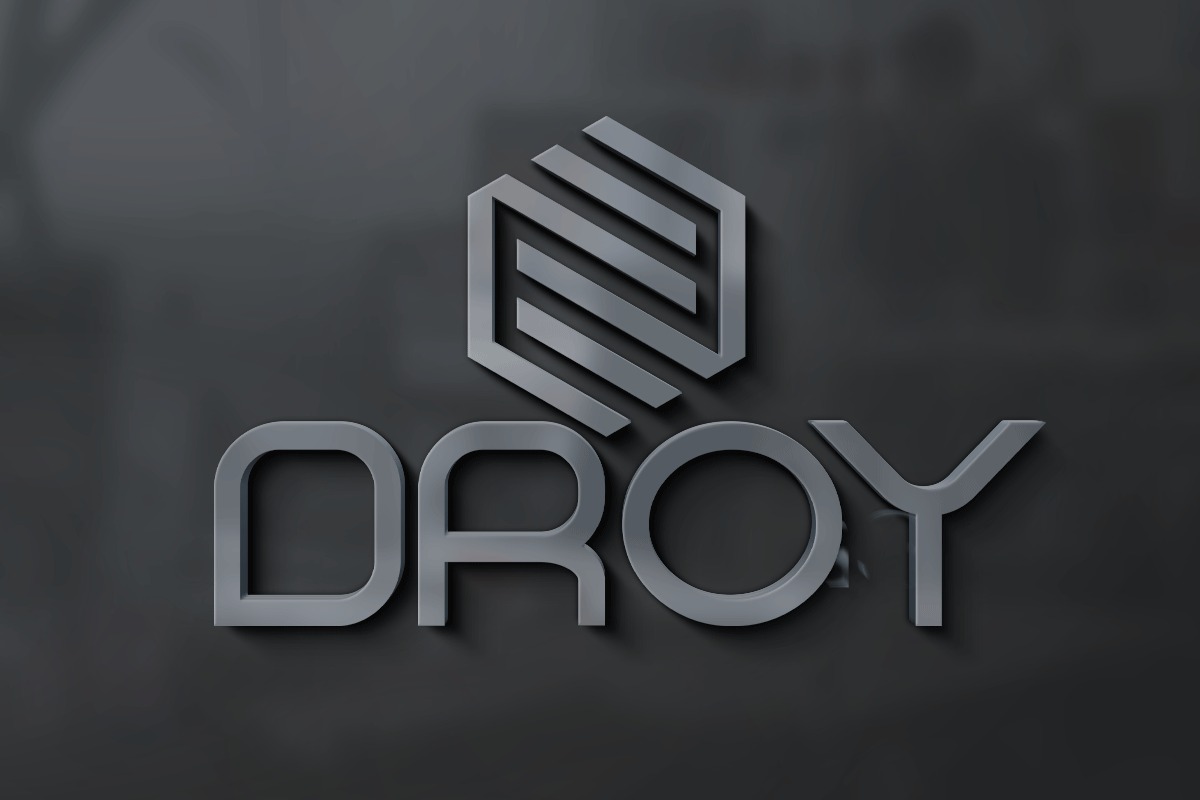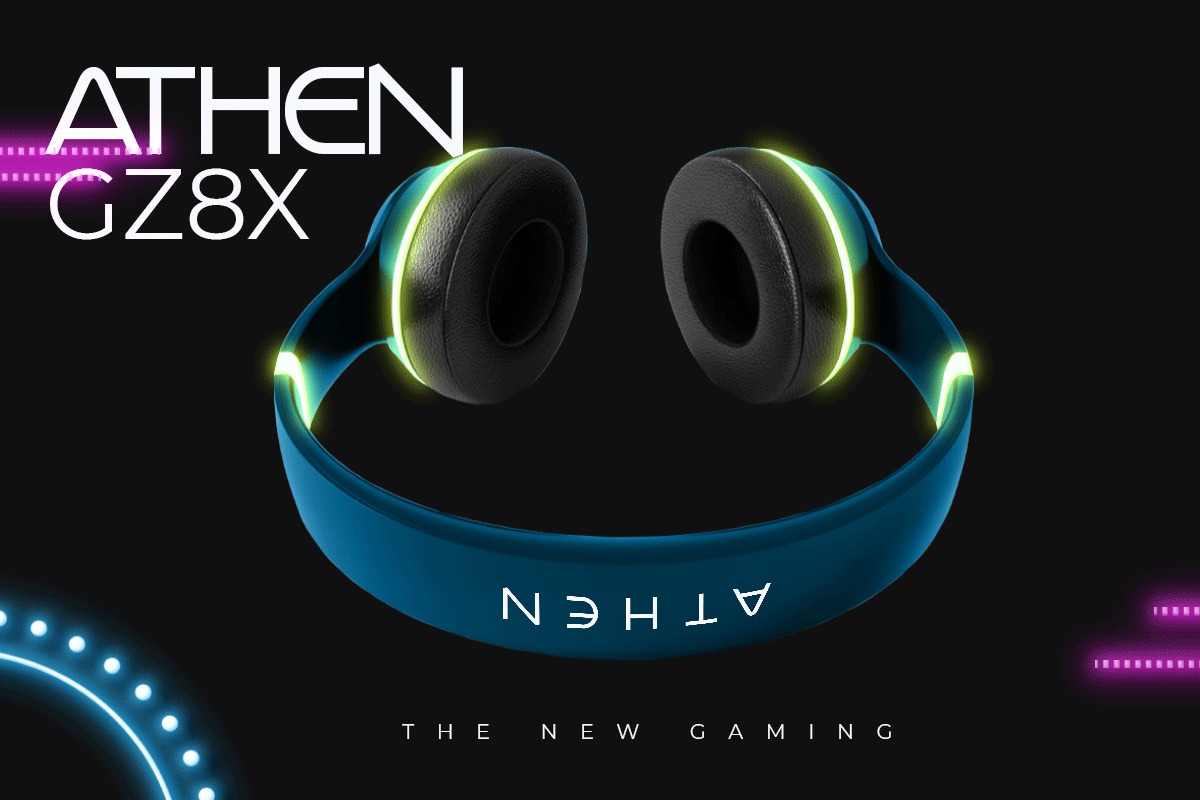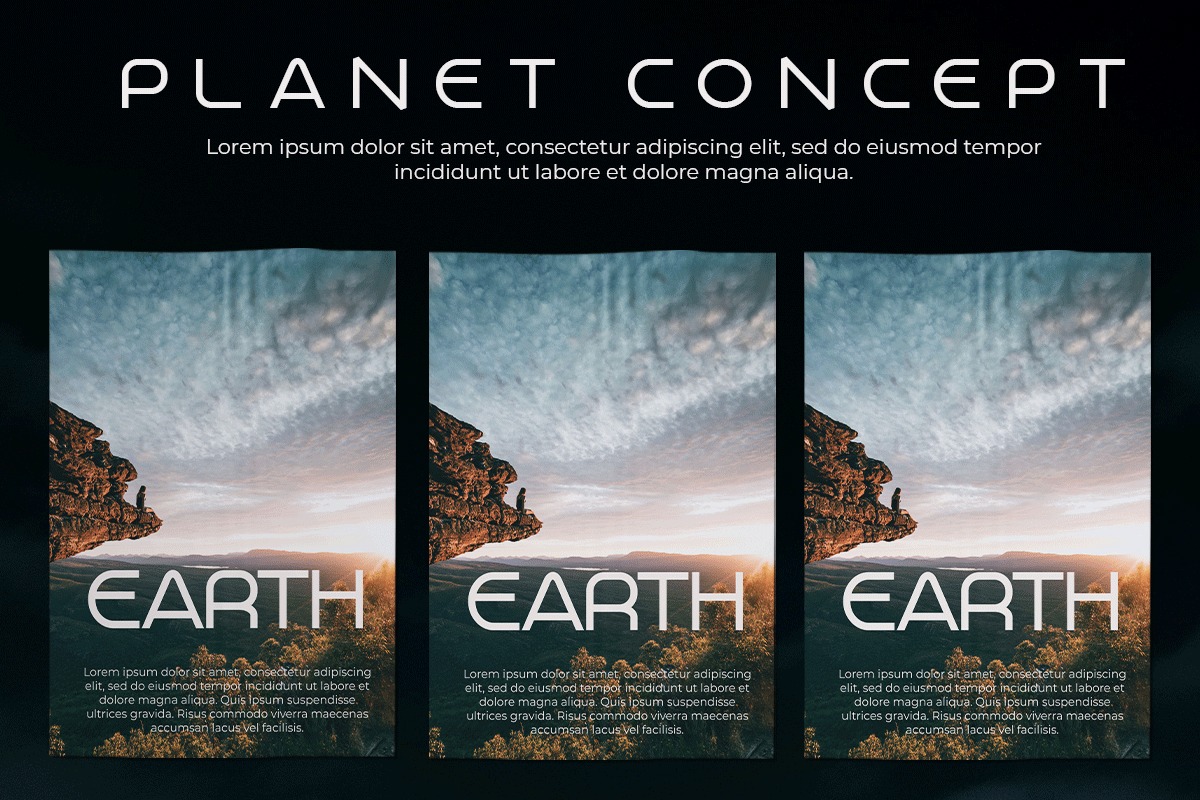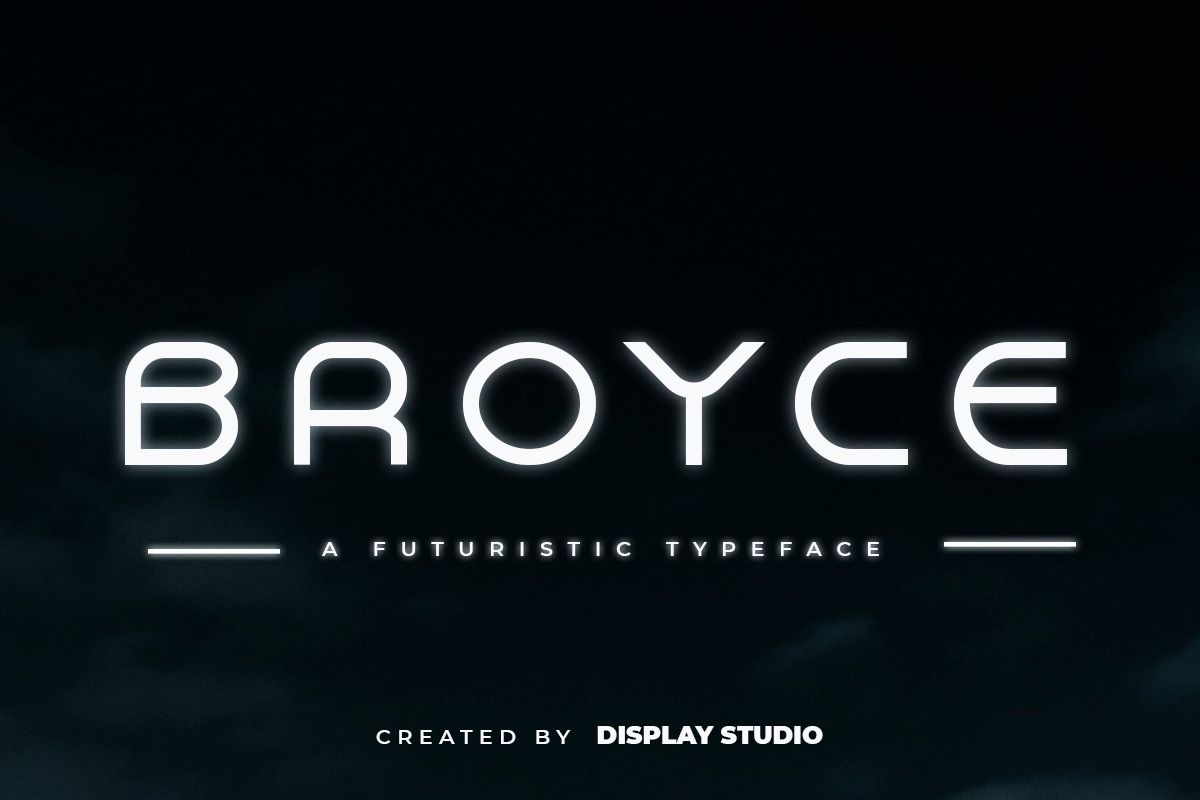
Broyce Display Font
This is minimalist font created by Display Studio with smooth and elegant rounded edges. This font is projecting modern and futuristic vibe, perfectly suited for graphic design application ranging from editorial and corporate design to web and interaction design.